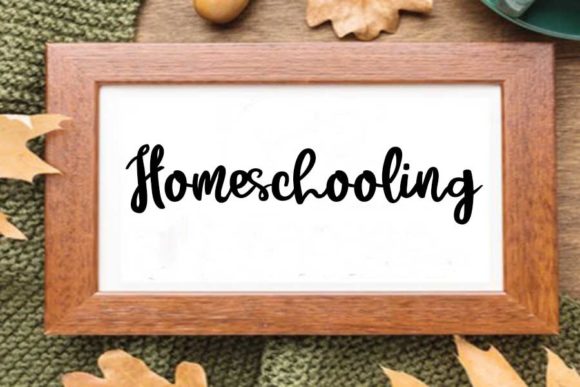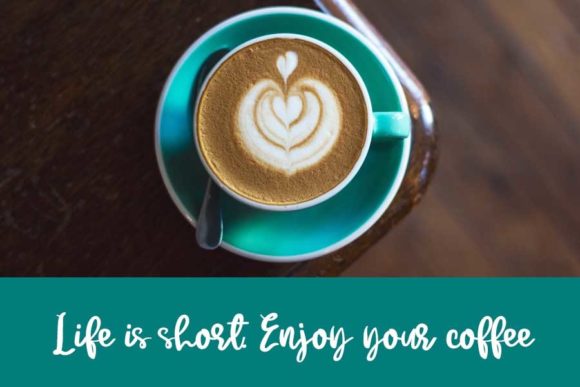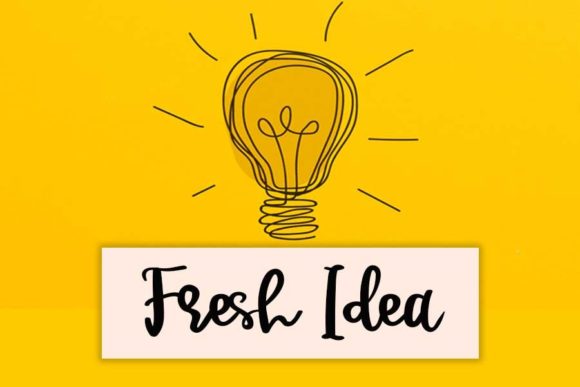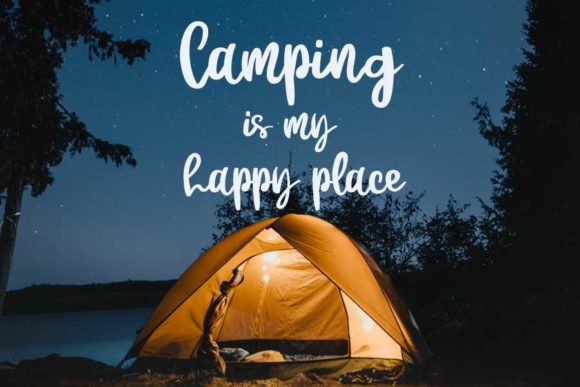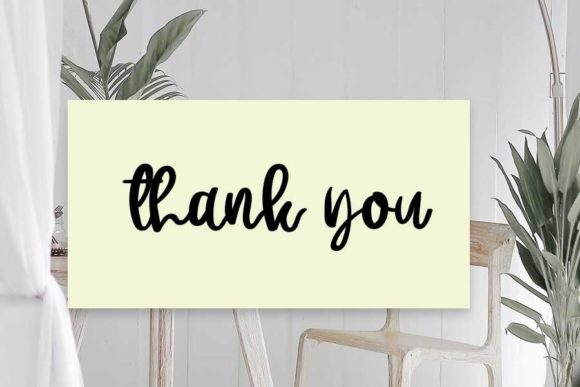
The Perfect Blend of Classic Elegance and Modern Flair
As summer comes to an end, designers everywhere are getting ready to dive back into their projects with renewed energy and a fresh perspective. And what better way to kick off the new season than with a font that embodies the perfect balance of timeless sophistication and contemporary charm?
Meet the Back to School Font, a beautiful script font designed to add a touch of elegance to any project. With its impeccable form and balanced, varied strokes, this font is the perfect choice for designers looking to elevate their work and make a lasting impression. Whether you’re working on a wedding invitation, a business card, or a blog post, the Back to School Font is sure to bring a touch of sophistication and style to your designs.
Key Features of “Back to School Font”
- Unique Characteristics: Whimsical, playful, and educational-inspired design elements, including pencils, books, and apples
- Character Count: Includes over 1000 glyphs, including Latin, Cyrillic, and Greek characters, as well as educational symbols and icons
Designer Review: Back to School Font
Overall, I think the Back to School Font is a decent choice for its intended purpose – educational materials and summer camps. It’s a fun, playful font that can add a bit of personality to your designs.
Here are some things that work well: ✨
- It’s highly legible, even at smaller font sizes.
- The font’s whimsical feel makes it perfect for younger audiences.
- It’s easy to use, with a simple and intuitive character set.
However, I do see some limitations: ⚠️
- The font lacks consistency in its line weights, which can be jarring at times.
- The font’s playfulness can come across as unprofessional in some contexts.
- It’s not suitable for formal or academic writing, which may limit its use.
Overall, I think the Back to School Font is a fun and creative choice for certain projects, but it may not be the best option for more formal or professional designs.
The “Back to School Font” is perfect for:
- School flyers and posters
- Back to school social media graphics
- Teacher and student portfolios
- Education-related blogs and websites
To get the most out of the “Back to School Font,” try the following:
- Pair it with bold and colorful graphics for a playful look.
- Use it in combination with other educational fonts for a cohesive design.
- Experiment with different font sizes and colors to create visual interest
Alternatives to Back to School Font for Designers
Comic Sans MS is a sans-serif font known for its casual and playful feel. It is suitable for informal and creative projects, such as greeting cards, posters, and social media graphics. While it has a similar casual tone to Back to School Font, Comic Sans MS is more versatile and widely recognized.
Pacifico is a modern sans-serif font that conveys a sense of friendliness and approachability. It is ideal for branding, advertising, and packaging designs. Compared to Back to School Font, Pacifico is more elegant and sophisticated, making it suitable for a wider range of design projects.
Great Vibes is a script font that evokes a sense of happiness and optimism. It is perfect for creating eye-catching headlines, titles, and labels. Similar to Back to School Font, Great Vibes has a playful and casual feel, but it is more refined and sophisticated.
Cream Soda is a script font that adds a touch of nostalgia and whimsy to designs. It is suitable for projects that require a vintage or retro feel, such as invitations, posters, and menus. Compared to Back to School Font, Cream Soda is more distinctive and attention-grabbing, making it ideal for designs that require a unique touch.
Creative Project Ideas using Back to School Font